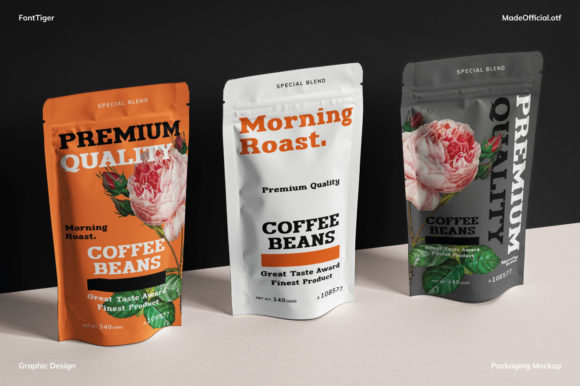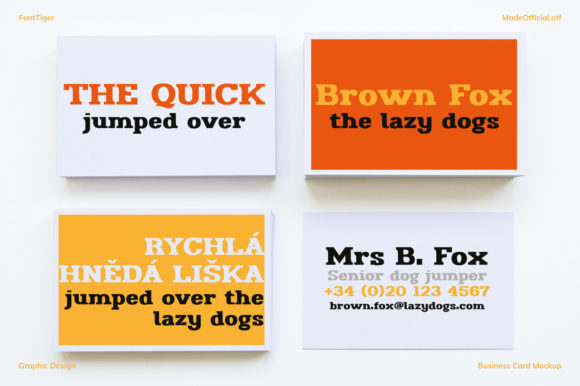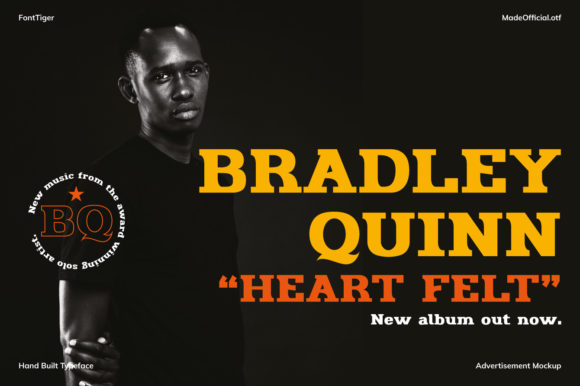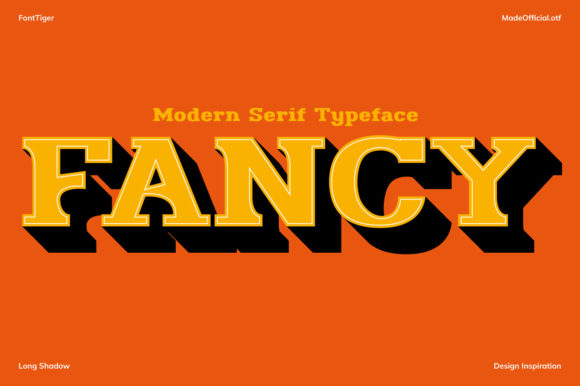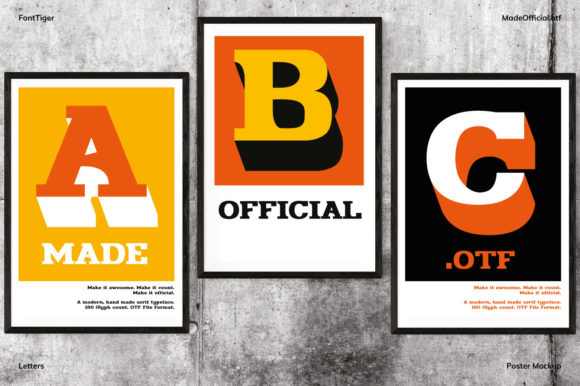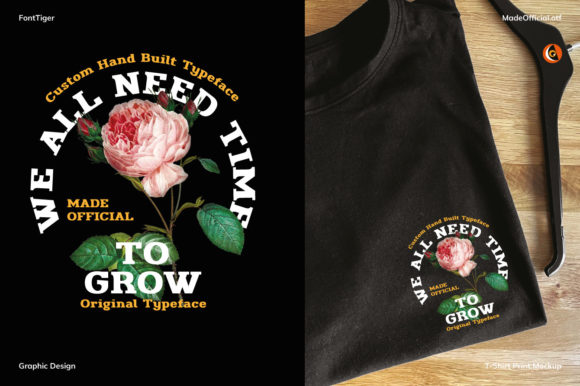
Introduction to Made Official Font
Made Official is a bold and thick lettered display font.
It is perfect for product packaging, branding project, magazine covers, social media, wedding, or just used to express words above the background .
Key Features of Made Official Font